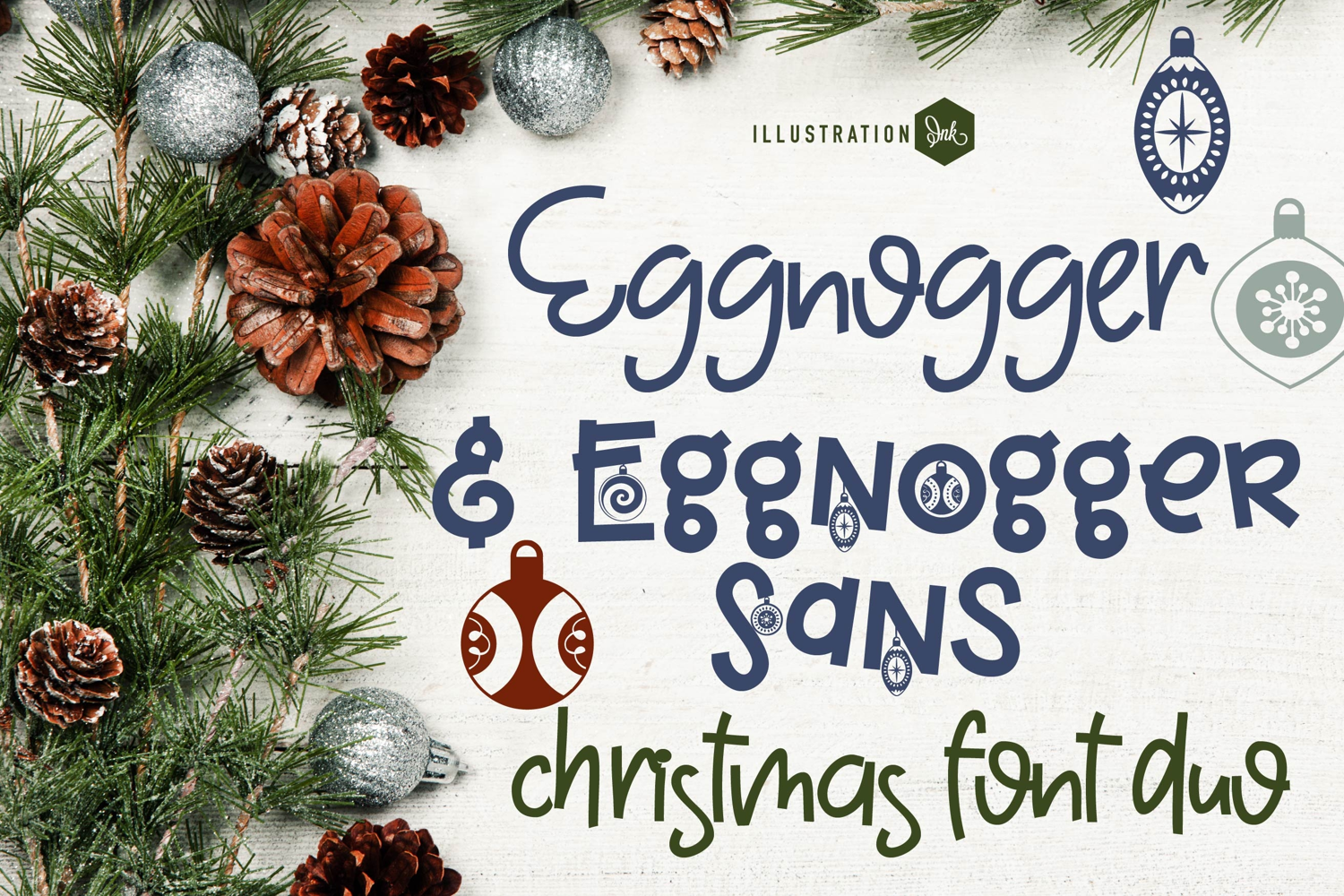
Eggnoger Font Duo
This hand-crafted font duo combines a hand-crafted script and a perfectly coordinated, ornament wearing script. Bonus tag dingbat font included! With all family members combined of the 2 fonts, you get 8 fonts all together!